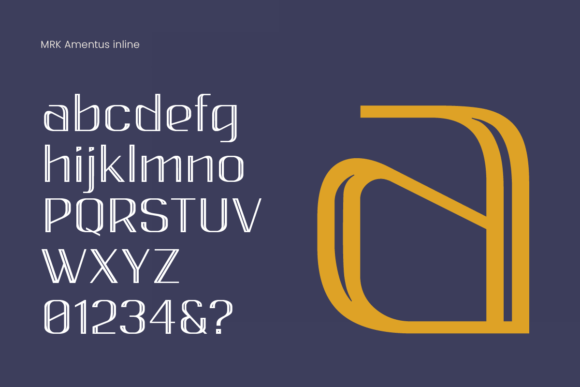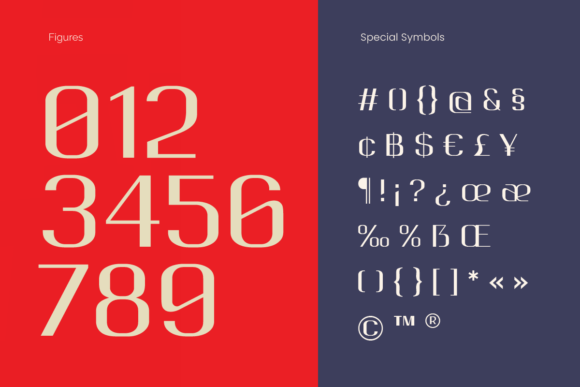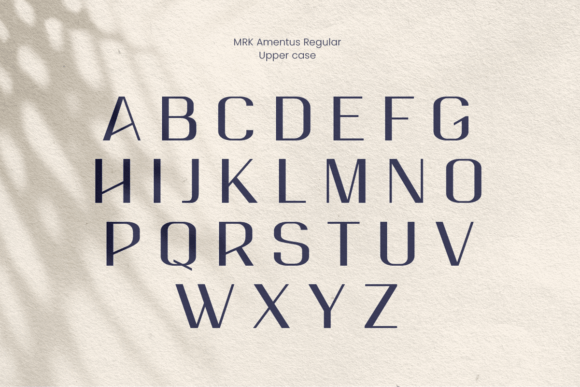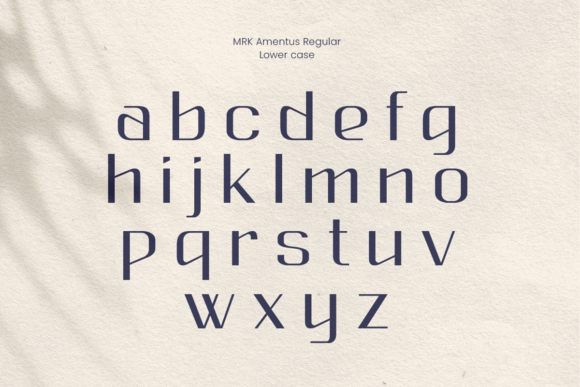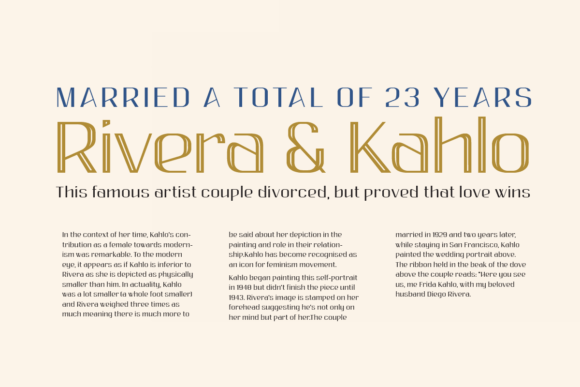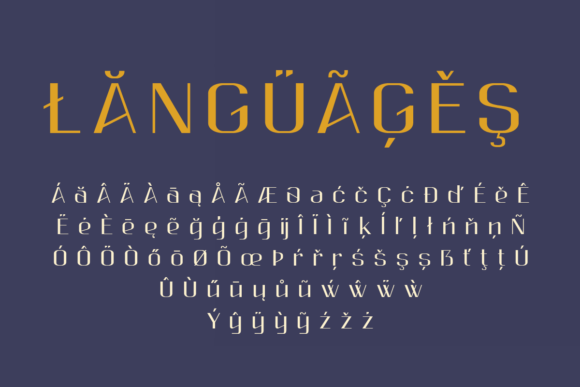
I still remember the countless hours I spent scrolling through font libraries, searching for the perfect typeface for a client’s branding project. The client wanted something modern, elegant, and sophisticated, but not too over-the-top. I tried font after font, but nothing seemed to fit the bill. That was until I stumbled upon Amentus Font.
Amentus Font is an elegant and modern sans serif font that has become a staple in my design toolkit. Inspired by a mix of humanistic and Grotesk styles, Amentus boasts a unique aesthetic that’s perfect for modern branding and headlines. In this article, I’ll share my experience with Amentus, its features, and how to make the most of it in your designs.
First Impressions: What I Love About Amentus Font
- ✨ Elegant and Modern: Amentus has a sleek, sophisticated look that’s perfect for high-end branding and luxury designs.
- ✅ Versatile: This font works well for both headlines and body text, making it a great addition to any design project.
- 💡 Unique Style: The horizontal oblique lines give Amentus a distinctive look that sets it apart from other sans serif fonts.
Honest Review: The Not-So-Perfect Amentus
While Amentus is an excellent font, it’s not without its quirks. Here are a few things to keep in mind:
- 🤔 Limited Ligatures: Amentus has a limited set of ligatures, which might be a drawback for some designers.
- ⚠️ Not Suitable for Body Text: While Amentus can be used for body text, it’s not the most readable font for long blocks of text. It’s best used for headlines, titles, and short paragraphs.
The Story Behind Amentus Font
Amentus Font was designed with the goal of creating a modern, elegant sans serif font that combines the best of humanistic and Grotesk styles. The designer aimed to create a font that’s both sophisticated and approachable, making it perfect for branding, headlines, and titles.
Q: What is Amentus Font?
A: Amentus Font is a modern sans serif font inspired by a mix of humanistic and Grotesk styles.
Q: What is Amentus Font used for?
A: Amentus Font is perfect for modern branding, headlines, titles, and short paragraphs.
Q: Is Amentus Font suitable for body text?
A: While Amentus can be used for body text, it’s not the most readable font for long blocks of text. It’s best used for headlines, titles, and short paragraphs.